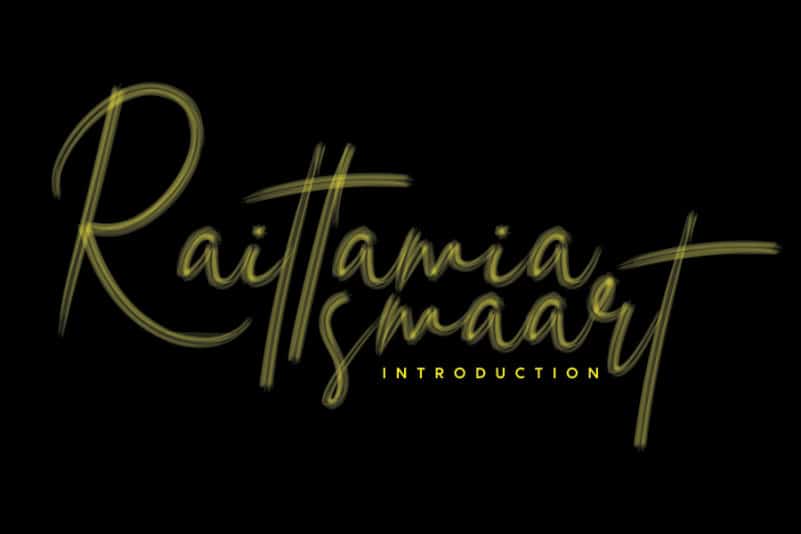
Raittamia Brush Font
Raittamia Brush Font is an incredibly beautiful and flowing handwritten font, created with the help of an outstanding brush pen. Fall in love with its versatile style and use it to create gorgeous wedding invitations, beautiful stationary art, eye-catching social media posts, and much more!
the latest style letters are perfect for wall displays, wedding invitations, social media post logos, advertisements, product packaging, product designs, labels, photography, watermarks, invitations, stationery, and any project that requires taste handwriting.